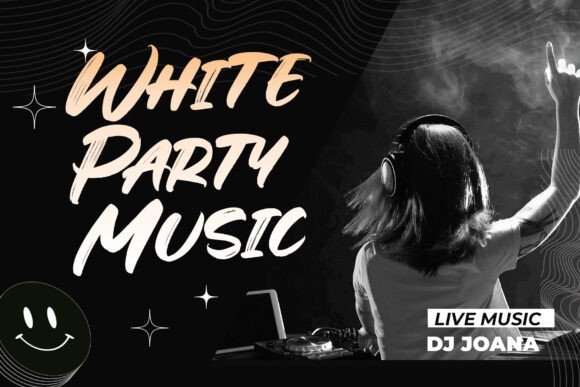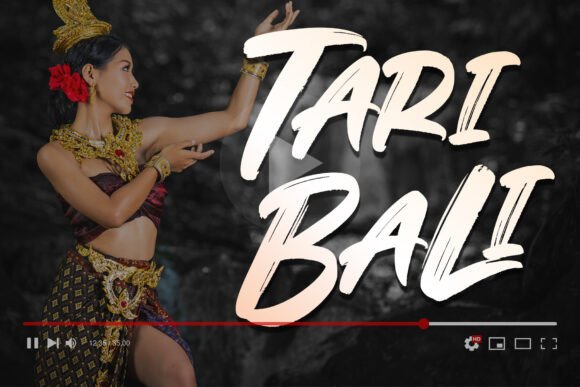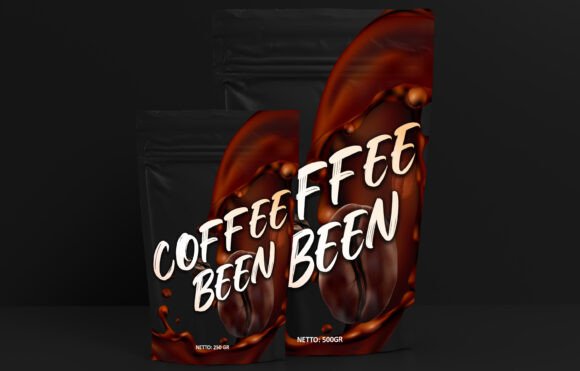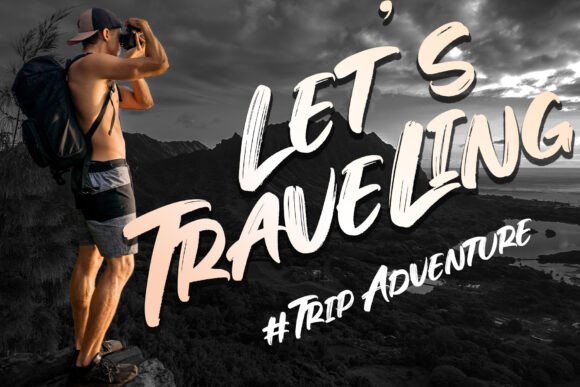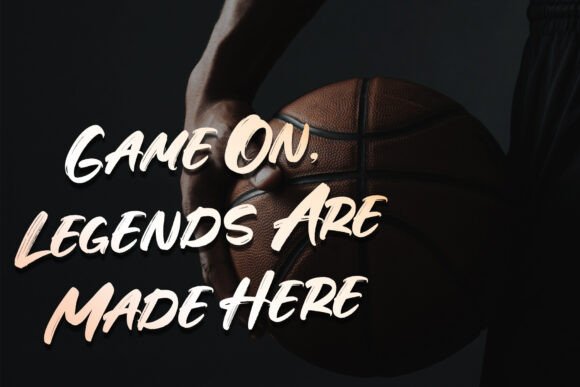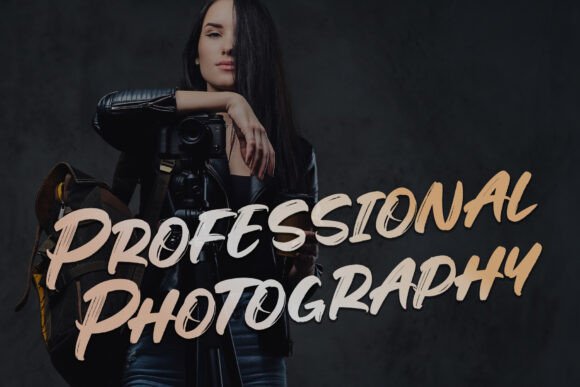
The Spark of Creativity
There’s a moment when inspiration strikes, and you know exactly what you want to create. The ideas flow, and your imagination runs wild. It’s in these moments that a great font can make all the difference, elevating your concept into something truly unforgettable. For designers, finding the perfect font can be the key to unlocking a project’s full potential.
Enter Broken Horizon Font, a natural brush font that embodies the raw energy and creativity we all strive for in our work. This dynamic font is designed to add a bold, handcrafted touch to your designs, making it perfect for striking logos, bold posters, and edgy branding. With its textured finish and sweeping strokes, Broken Horizon Font is sure to leave a lasting impression on your audience.
Broken Horizon Font Key Features
- Font Family: Broken Horizon
- Font Size: 1,050 glyphs, including Latin, Cyrillic, and Greek alphabets
- Resolution: Supports high-resolution displays, including Retina and 4K
- Unique Characteristics: Distressed, weathered, and worn-out aesthetic, ideal for vintage, distressed, or retro designs
Designer Review: Broken Horizon Font
Overall, I’m impressed with the Broken Horizon Font. It has a unique and quirky feel that can add some much-needed character to designs.
- ✨ The font’s organic and hand-drawn style works particularly well for titles, headings, and any other text that needs to stand out.
- ✨ The subtle imperfections and variations in letterforms give the font a human touch that’s hard to replicate with more uniform fonts.
- ✨ Broken Horizon Font is highly customizable, making it easy to adjust the style to fit your specific design needs.
- ⚠️ The font may not be the best choice for body text or long passages of text, as it can be difficult to read at smaller font sizes.
- ⚠️ The unique style may not be to everyone’s taste, and some designers may find it too quirky or distracting.
Overall, I think Broken Horizon Font is a great addition to any designer’s toolkit. While it may not be suitable for every project, it’s definitely worth considering for designs that need a little extra flair.
Getting the Most Out of the Broken Horizon Font
Use the Broken Horizon font to create a distressed, vintage look in your designs.
Pair the font with bold colors and textures to add depth and interest.
Experiment with different font sizes and styles to create a unique and eye-catching design.
The Broken Horizon font is ideal for:
Distressed or vintage-themed designs.
Branding and marketing materials.
Posters and flyers.
Photography captions and titles.
Alternatives to Broken Horizon Font
Pacifico is a beautiful, elegant script font that is perfect for creating a sense of luxury and sophistication. It is ideal for use in branding, advertising, and editorial design. When to use: For creating a high-end feel, for wedding invitations, and for luxury brand logos.
Comparison to Broken Horizon Font: Pacifico is more elegant and refined, whereas Broken Horizon Font has a more rustic and weathered feel. Pacifico is better suited for formal designs, while Broken Horizon Font is more suitable for informal or vintage-inspired designs.
Great Vibes is a modern, elegant script font that is perfect for creating a sense of fun and playfulness. It is ideal for use in branding, advertising, and editorial design. When to use: For creating a fun and energetic vibe, for fashion brands, and for youth-oriented products.
Comparison to Broken Horizon Font: Great Vibes is more modern and playful, whereas Broken Horizon Font has a more vintage and weathered feel. Great Vibes is better suited for designs that require a sense of fun and energy, while Broken Horizon Font is more suitable for designs that require a sense of nostalgia and vintage charm.
Carolyna Pro is a elegant, modern script font that is perfect for creating a sense of sophistication and glamour. It is ideal for use in branding, advertising, and editorial design. When to use: For creating a high-end feel, for luxury brand logos, and for editorial design.
What is the recommended font size and line height for the Broken Horizon Font?
The recommended font size and line height for the Broken Horizon Font vary depending on the design application and the intended use of the font. However, as a general guideline, we recommend using a font size between 12-24 points and a line height of 1.2-1.5 times the font size. This will ensure that the font is readable and visually appealing in most design contexts.